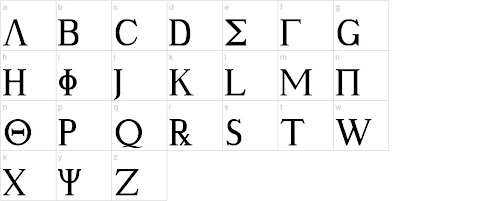
Sbl biblit is a font that packages sbl greek and sbl hebrew together. Download the pdf file that shows you the keyboard layout where all the greek characters are located.
Biblical greek fonts free download. Use special fonts that display english letters as though they were greek and hebrew, such as the common fonts produced by bibleworks: Download free greek fonts for commercial and personal use. We have gone to a lot of work to make sure they print professionally and are compatible across the macintosh, windows, and the web.
Fonts are categorized into unicode and legacy fonts with advice for which to use. To use greek and hebrew in your documents, you can now choose between two different approaches: Download bstfonts in order to view the greek and hebrew text in goshen’s bible study tools.
This pdf shows only the. Bc) rosetta stone (196 bc) nahal hever a (c. For most students doing undergraduate or masters work, a font that supports common characters in biblical studies is all that is necessary.
One solution is to print your file as a pdf document, which will preserve your font settings everywhere. Download the macintosh truetype font. The sbl greek font is a unicode font (in opentype ttf format) provided as a free service to scholars by the society of biblical literature.
50 bc) nahal hever b (c. Free download 100% clean report malware. Udd has created a beautiful collection of fonts that imitate the writing styles of ancient scribes in a series of important ancient greek texts.
Download the latest version of the font. According the style manual, the required fonts for greek and hebrew are sbl greek and sbl hebrew. Bwgrkl for greek and bwhebb for hebrew.
Use unicode to actually type greek/hebrew text alongside english. Do not install the font unless you are willing to accept the license terms. All of these links have free greek fonts which include accented characters for ancient or biblical greek.